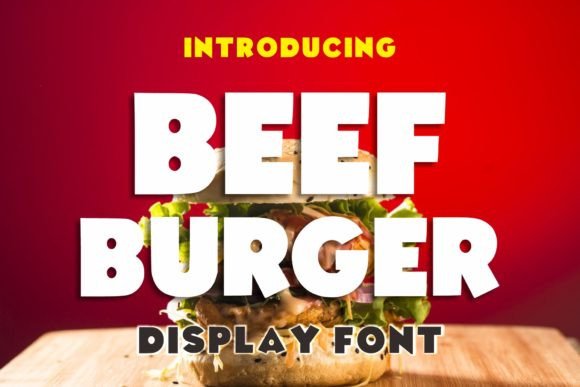
BEAF BURGER: A STRATEGIC FONT FOR CREATIVE AND BUSINESS GOALS
Beef Burger is more than just a fontβit's a strategic tool that can influence how your message is perceived and received. With its bold, casual, and friendly all-caps style, Beef Burger offers a unique visual identity that stands out in a crowded digital space. Whether you're building a brand, designing marketing materials, or creating content for a website, understanding how to use Beef Burger effectively can help you achieve better results.
This font isn't just about aesthetics; it's about purpose. When used thoughtfully, Beef Burger can support your goals by enhancing readability, reinforcing brand personality, and engaging your audience in a more approachable way. However, like any design element, it requires careful consideration to ensure it aligns with your overall strategy.
WHY BEAF BURGER MATTERS IN DESIGN AND COMMUNICATION
Beef Burger is designed for impact. Its large, uppercase letters and playful structure make it ideal for headlines, logos, and other high-visibility elements. But its usefulness goes beyond just looking good. The font's casual charm can help create a sense of trust and familiarity, which is especially important in branding and customer engagement.
For entrepreneurs and small business owners, Beef Burger can be a powerful ally in communicating a brand's personality. If your business is focused on food, entertainment, or lifestyle, this font can reinforce the fun and friendly nature of your offerings. It's also useful for projects that require a modern, edgy look without being too formal.
However, it's important to recognize that not every project will benefit from Beef Burger. The font's style may not be appropriate for professional or academic settings where a more traditional typeface would be expected. Understanding when and how to use Beef Burger strategically is key to maximizing its value.
HOW TO USE BEAF BURGER INTENTIONALLY
Before incorporating Beef Burger into your design work, consider your goals and audience. Ask yourself: What message do I want to convey? Who is my target audience? How does this font align with my brand voice?
One practical approach is to use Beef Burger as a highlight or accent rather than the main text. For example, it can be used in headlines, call-to-action buttons, or social media posts to draw attention and add personality. This helps maintain readability while still leveraging the font's unique style.
Another tip is to pair Beef Burger with complementary fonts. Using it alongside a more neutral typeface can balance its boldness and prevent it from overwhelming the design. This is particularly useful in web design, where legibility and user experience are critical factors.
When working on a project that involves multiple design elements, such as a website or marketing campaign, it's wise to test Beef Burger in different contexts. Does it work well on mobile devices? Is it easy to read in small sizes? These considerations can help you avoid potential issues and ensure the font supports your objectives.
STRATEGIC USE CASES FOR BEAF BURGER
Beef Burger is particularly effective in creative industries where visual appeal plays a major role. For instance, a food blogger might use it for recipe titles or menu headers to reflect the casual, enjoyable nature of their content. Similarly, a music venue could use it for event posters to create a vibrant and energetic atmosphere.
In the realm of digital marketing, Beef Burger can be used to stand out in social media feeds. Its bold style makes it ideal for eye-catching captions, hashtags, or promotional banners. However, it's important to use it sparingly to avoid appearing unprofessional or cluttered.
For educators and trainers, Beef Burger can be a useful tool for creating engaging presentations or handouts. Its friendly tone can make complex information feel more approachable, especially when targeting younger audiences or those who may find traditional fonts intimidating.
POTENTIAL RISKS OF USING BEAF BURGER WITHOUT CLEAR CONTEXT
While Beef Burger has many advantages, using it without a clear purpose can lead to negative outcomes. Overuse or inappropriate application can make your content appear unprofessional, confusing, or even off-putting to some audiences.
One common mistake is using Beef Burger for body text. Its large, uppercase letters can be difficult to read in long paragraphs, which can hurt user experience and reduce the effectiveness of your message. Always consider the readability of your content before choosing a font.
Another risk is failing to align the font with your brand's identity. If your business is positioned as serious or sophisticated, Beef Burger may not fit the desired image. In such cases, a more traditional font would be more appropriate.
Additionally, relying too heavily on Beef Burger without considering other design elements can result in a disjointed or inconsistent look. It's essential to integrate the font into a broader design strategy that supports your overall goals.
By approaching Beef Burger with a thoughtful and strategic mindset, you can leverage its unique qualities to achieve better results. Whether you're an entrepreneur, marketer, designer, or educator, understanding how to use this font effectively can help you communicate more clearly, engage your audience more deeply, and build a stronger brand presence.